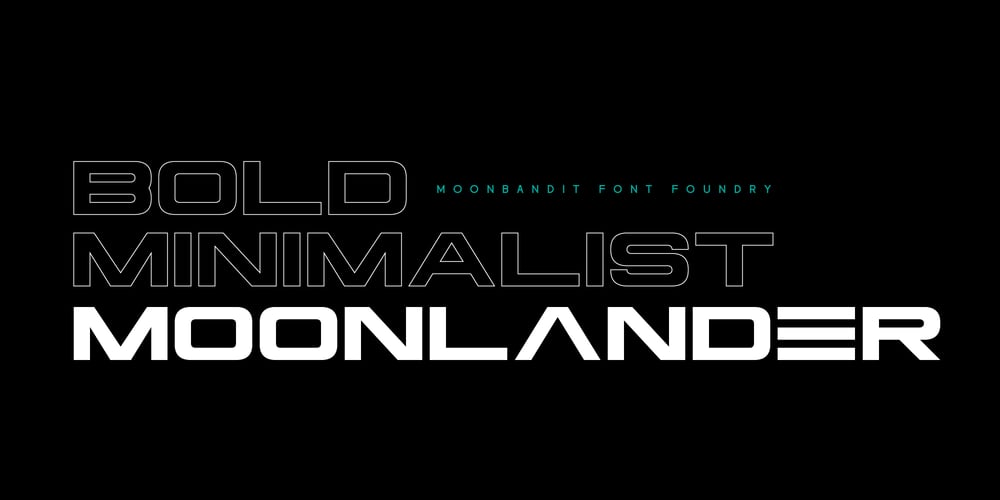
MBF Moonlander Font Family was designed by Bramaji Dipa Manggala and published by Moonbandit. MBF Moonlander contains 1 styles and family package options. Moonlander, a modern bold and wide sans serif font.This clean and sharp typeface is inspired from the lively urban lifestyle and can be perfect as a headline, title, logo, branding.